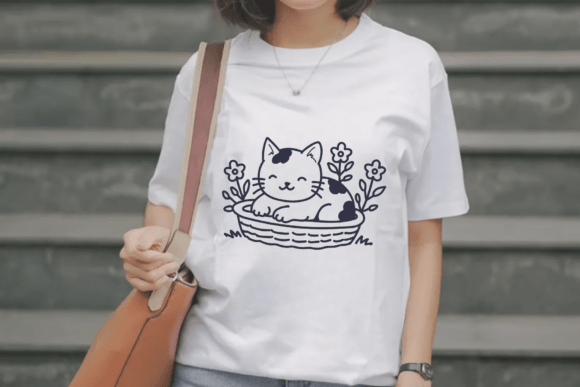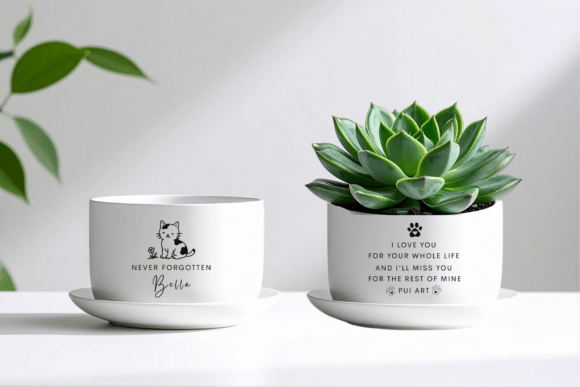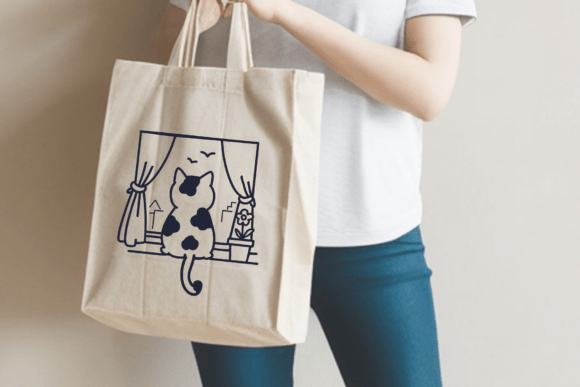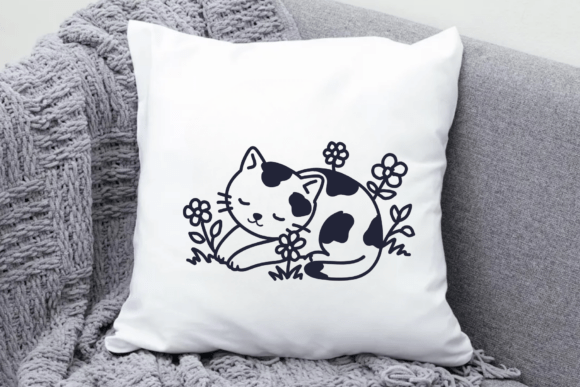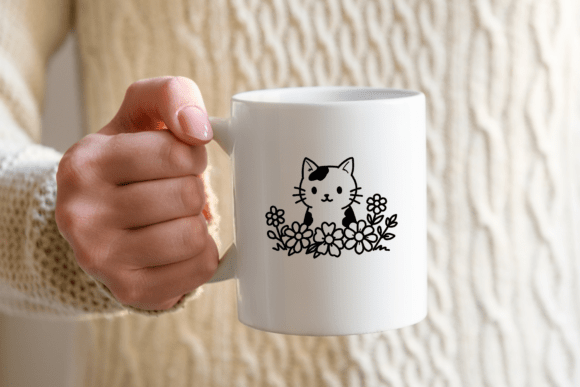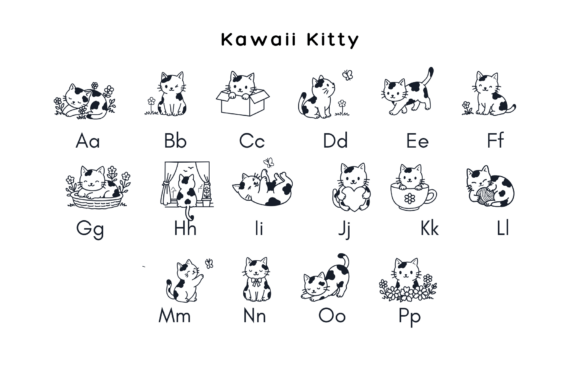
Introduction to Kawaii Kitty Doodle Font
Kawaii Kitty Dingbat Font is a cute collection of adorable cat doodles, paw prints, hearts, and playful kitty illustrations perfect for Cricut projects, sublimation, stickers, T-shirts, nursery decor, scrapbooking, planners, and pet lover crafts.
This charming dingbat font adds a sweet kawaii touch to every creative design and works beautifully for DIY and print-on-demand projects .
Key Features of Kawaii Kitty Doodle Font
Why Choose Kawaii Kitty Doodle Font?
Kawaii Kitty Doodle Font offers exceptional quality and versatility, making it a valuable addition to your design toolkit. Whether you’re creating for personal projects or commercial use, Kawaii Kitty Doodle Font delivers professional results.